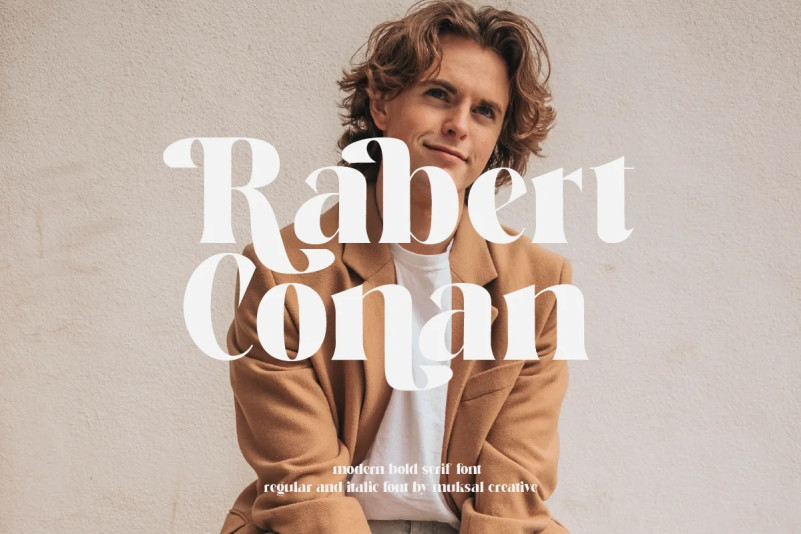
Rabert Conan Font
Rabert Conan Modern Bold serif Font typeface with beautiful alternate and Ligature, special glyphs, ornament and multilingual support. It’s a very versatile font that works great in large and small sizes. Perfect for editorial projects, Logo design, Clothing Branding, product packaging, magazine headers, or simply as a stylish text overlay to any background image. Accented characters